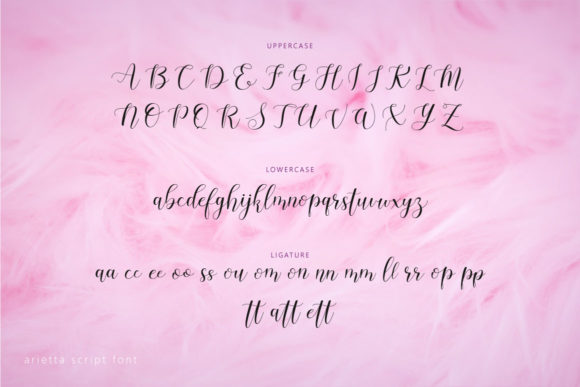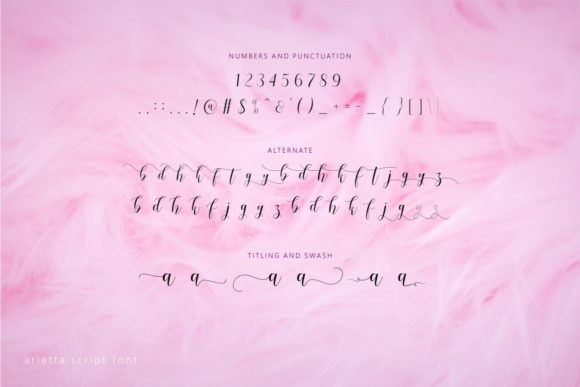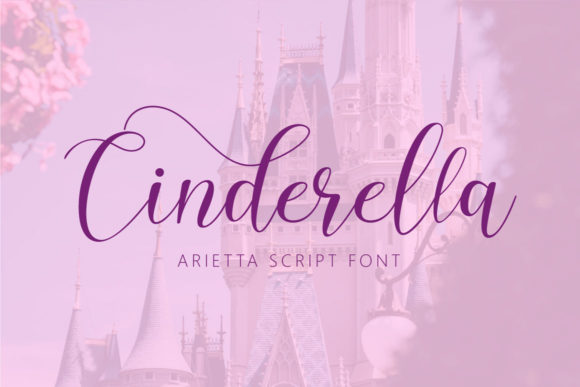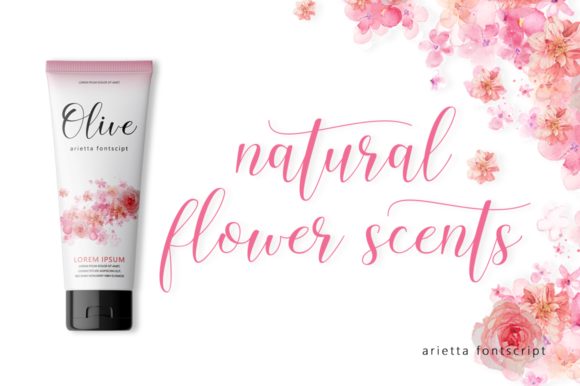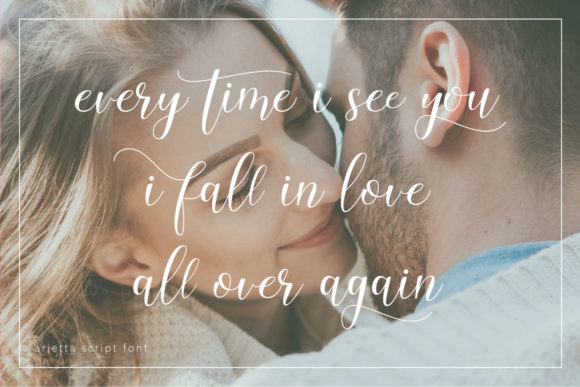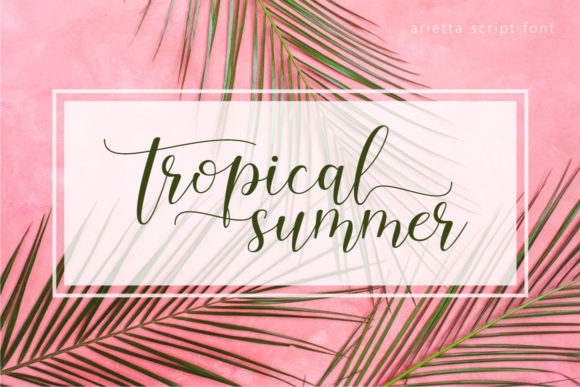
Arietta Font
About Arietta Font
The Arietta is a masterpiece based on modern font scripts with unique, elegant, romantic, easy to read, and very easy to use themes in various uses.
It can be used for logos, stationary, advertising, invitation cards, quotes, and much more!